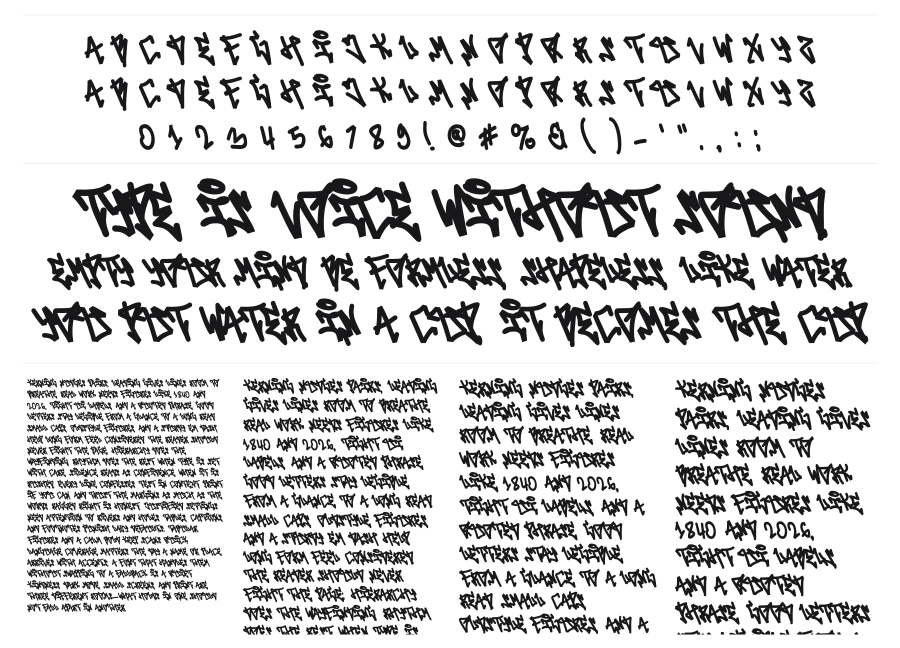
Vandal Revolt
Vandal Revolt is a bold monoline graffiti script built on the dense, interlocking aesthetic of wildstyle tagging. Characters chain together in an angular, restless flow that captures the illegibility-as-identity ethos of street lettering. Works best at large sizes where the full graphic weight of the design hits hard.